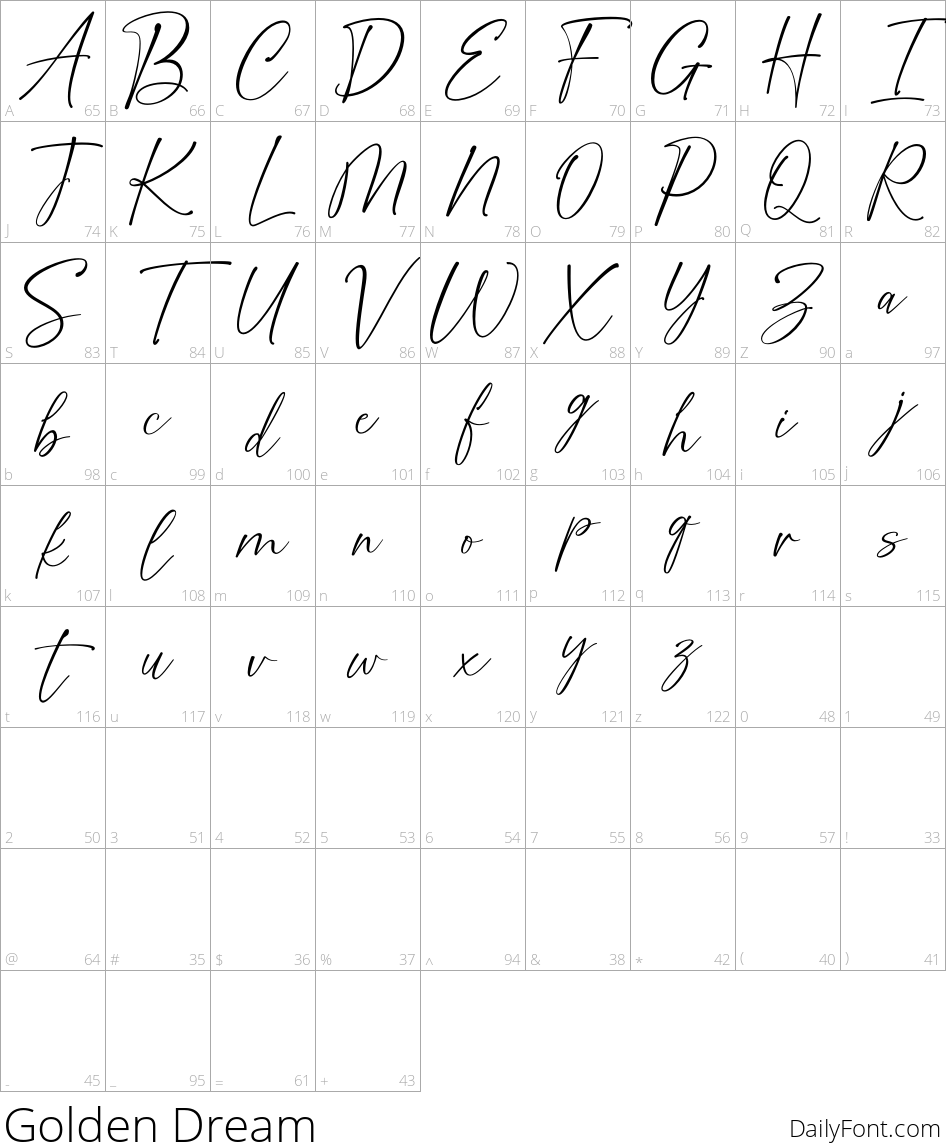
Golden Dream
Golden Dream is an exceptionally inspiring and creative font duo that will help take your design projects to the next level. With its unique and visually pleasing design, this font duo is sure to capture the attention of your audience and leave a lasting impression.
The first font in the duo is a bold and eye-catching script font that exudes elegance and charm. Its flowing lines and graceful curves make it the perfect choice for creating titles and headlines that demand attention.
The second font is a clean and modern sans-serif font that complements the script font perfectly. Its simplicity and versatility make it an ideal choice for body text, captions, and other supporting elements.
Together, these fonts work in perfect harmony to create a cohesive and visually stunning design. Whether you're working on a branding project, a website design, or a marketing campaign, Golden Dream is the perfect choice to help you stand out from the crowd and make a memorable impression on your audience.